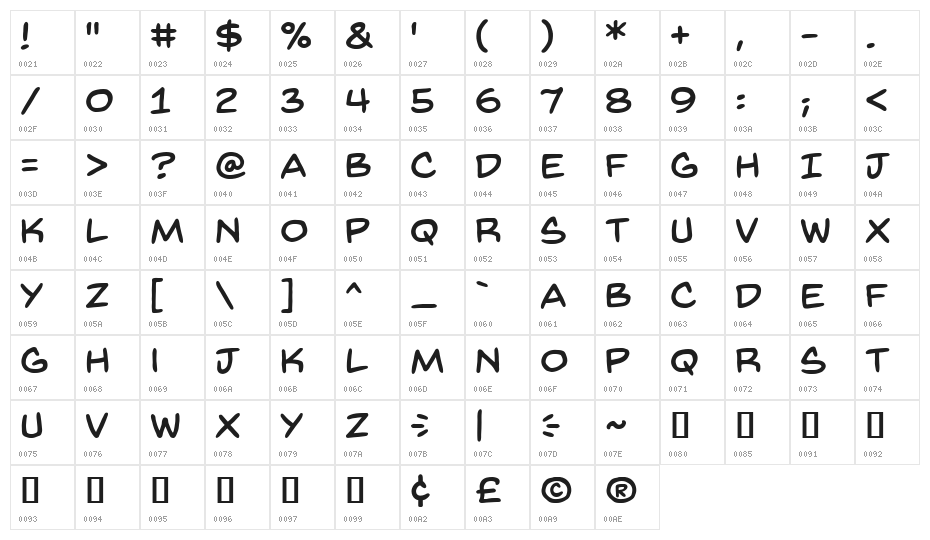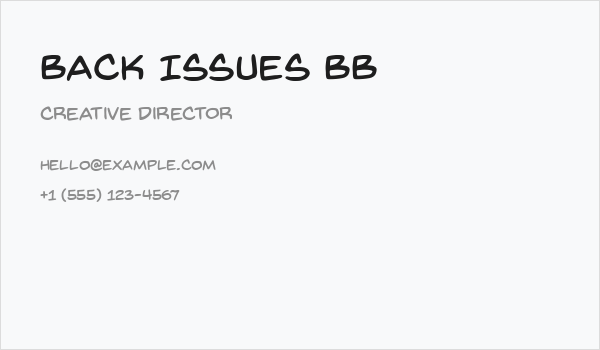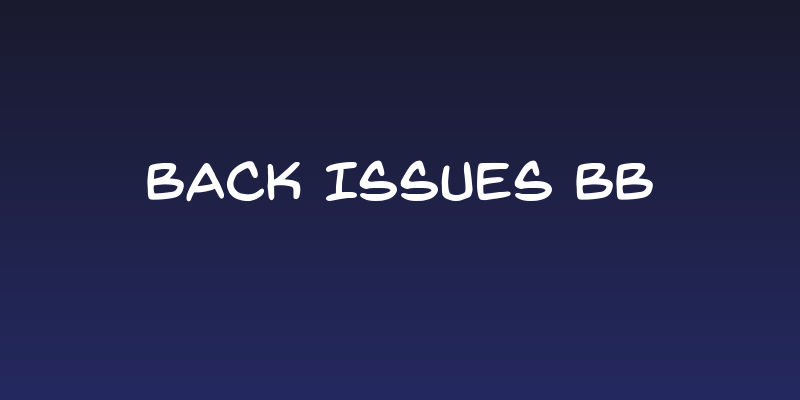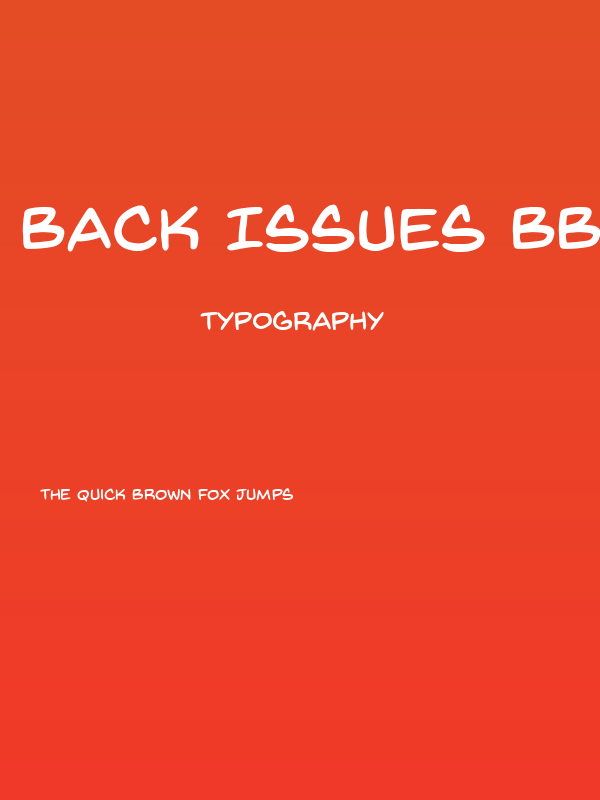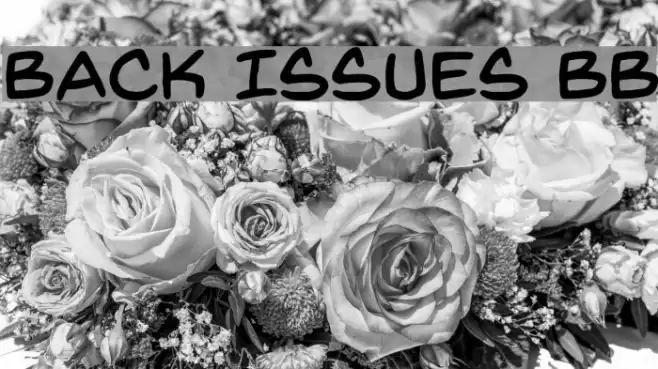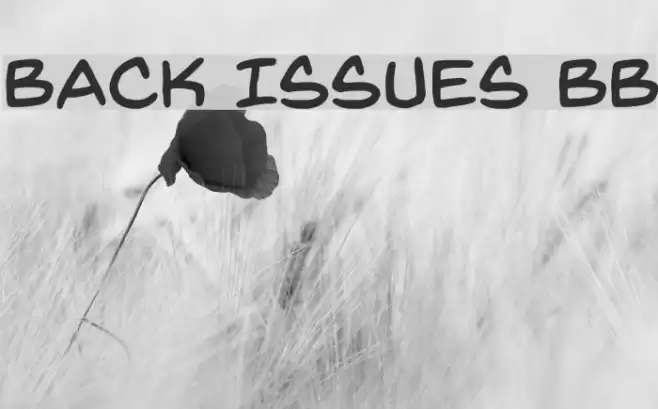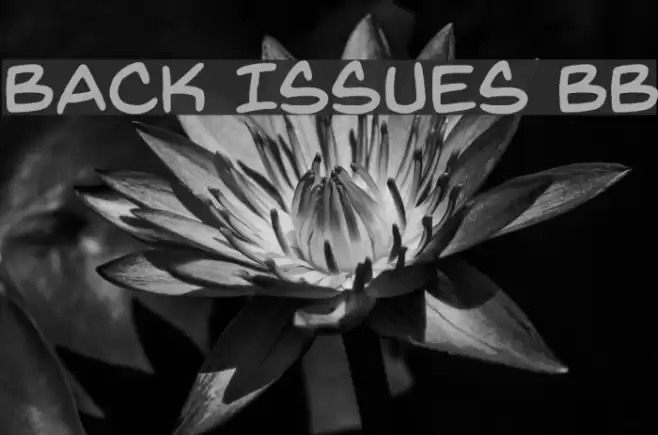
Back Issues BB Font
Back Issues BB Description
This font features a playful and casual handwritten style, characterized by its rounded and slightly irregular letterforms. The strokes are bold and consistent, giving it a friendly and approachable appearance. The uppercase and lowercase letters maintain a uniform height, enhancing readability while preserving a whimsical charm. Numbers and special characters are designed with the same playful aesthetic, making them suitable for informal and creative projects. The overall design is reminiscent of hand-drawn text, ideal for adding a personal touch to any design.
| Overall Style | Casual |
| Use Case | Headlines, Logos, Informal Text |
| Proposed Projects | Ideal for greeting cards, children's books, comic strips, and playful branding. |